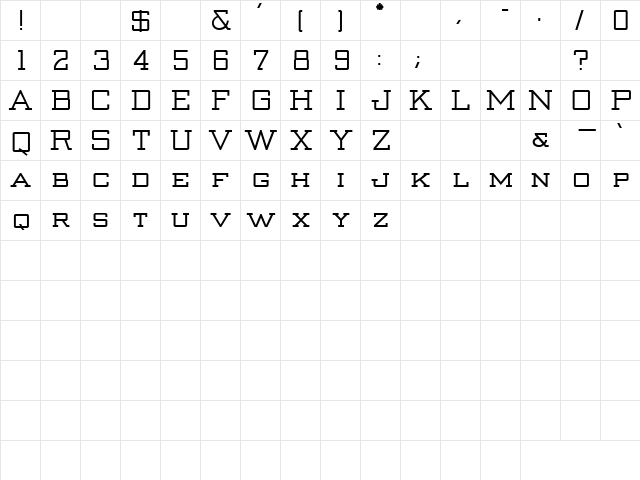
Urgency 4 Regular
Design Context for Urgency 4 Typeface
Urgency 4 offers clean, dependable letterforms without strong stylistic allegiance, making it a practical choice for designers who need flexibility.